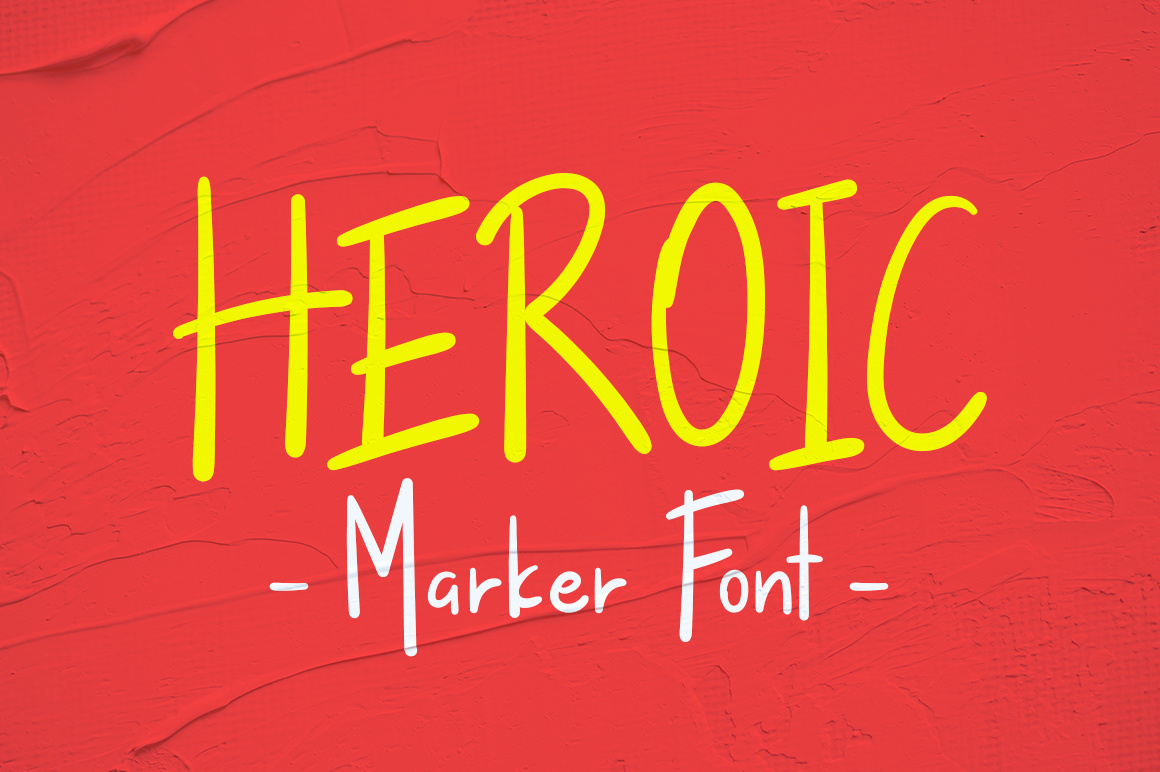
Free Heroic Handwritten Marker Font
Heroic is a bold and playfull handwritten brush font. This font is very unique because sometimes it can look fierce like in modern street art graffiti if with capital letters, but sometimes it can look cute if it is included with the lowercase letters. As a result, this font can matches a wide pool of designs. This font is perfect for many different project such as logos, branding, social media, headlines, posters, apparel, graffiti tags, crafty DIY project or anything